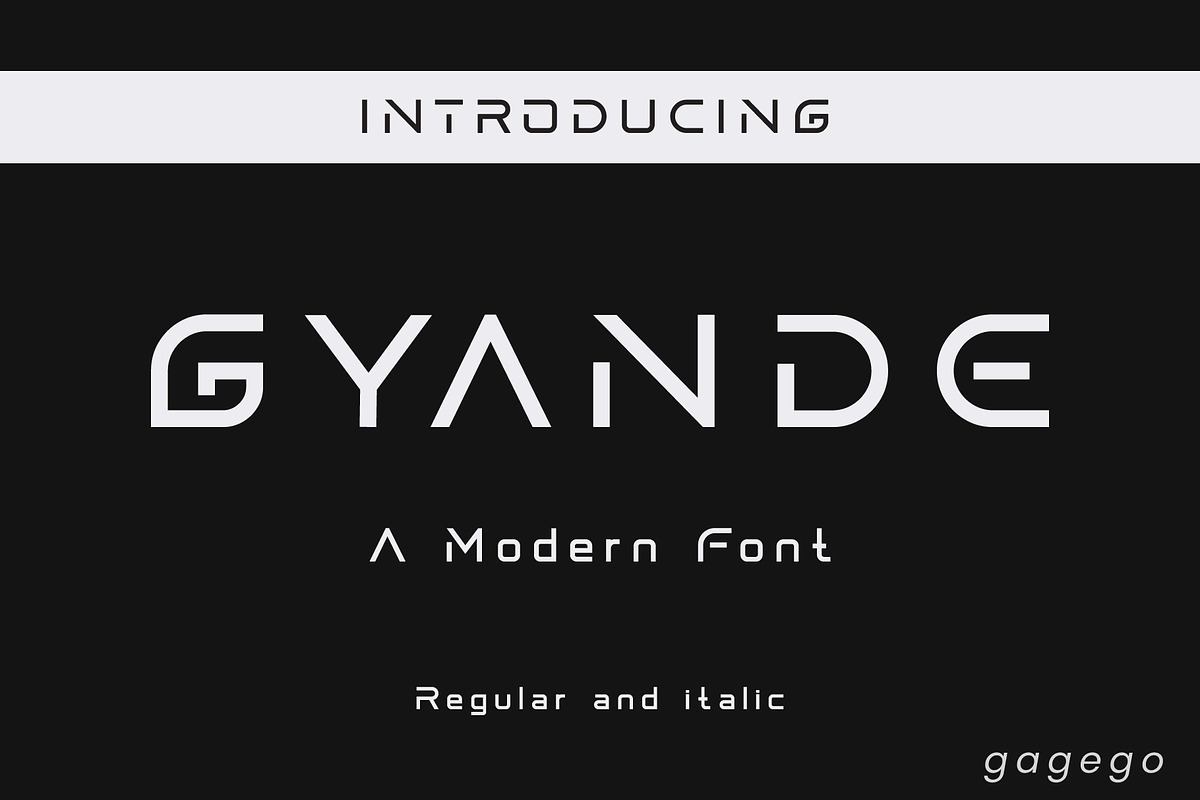
Gyande Font Free Download is a sleek, modern typeface designed to elevate any design project with its clean lines and sophisticated look. Perfect for logos, branding, web design, editorial layouts, and contemporary art, this font is ideal for creating a professional, stylish appearance.
Its geometric shapes and balanced proportions offer excellent readability and flexibility, making it perfect for both digital and print formats. Whether you're designing for a tech startup, fashion brand, or any modern aesthetic, Gyande delivers clarity and elegance. Gyande Font Free Download allows you to explore this minimalist beauty in personal projects before securing a commercial license.
Elevate your designs with Gyande — the modern font that blends simplicity with sophistication.